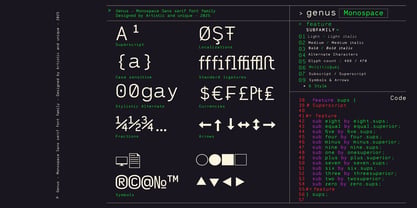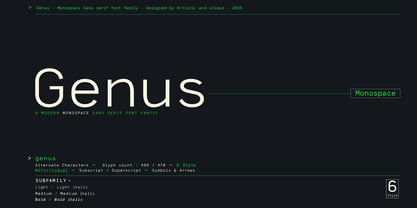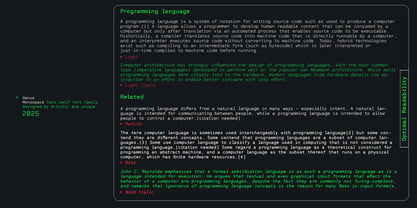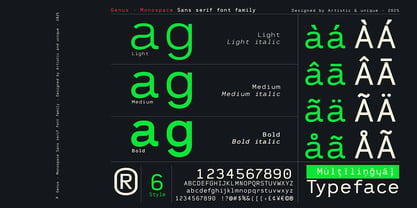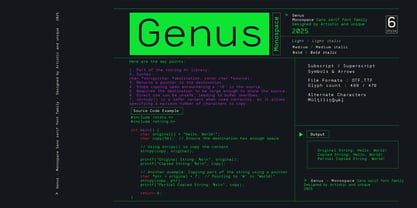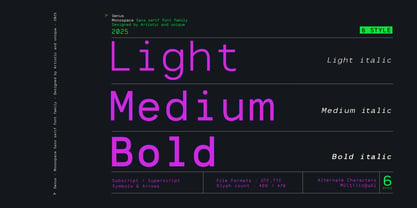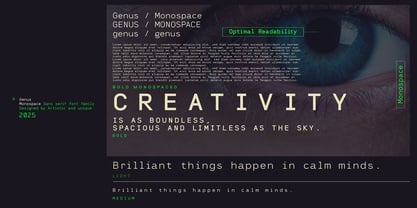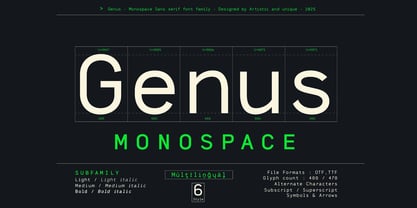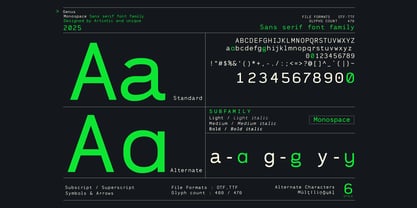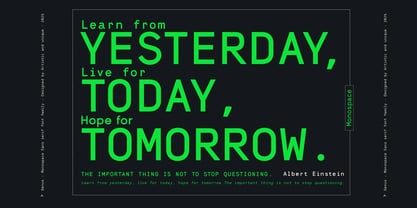
The Genus Font Family was designed by Osman Taner Kucukgenc and published by Artisticandunique. Genus contains 6 styles and family package options. More about this family
Genus - Monospace Sans Serif Font Family
This sans serif font is available in 6 styles and features multilingual support. Each font contains 458 glyphs, including letters, small caps, numbers, punctuation, symbols, and more.
A highly functional, monospaced font family designed for optimal performance in both print and the web.
OpenType features in Genus Monospace include Small Caps, Case-Sensitive Punctuation, Stylistic Alternates, Fractions, Subscripts, Superscripts, Ligatures, and more.
Thanks to its structure, Genus Monospace is highly readable even at small sizes. It's suitable for coding, user experience, web, and graphic design, offering versatility and visual impact for a wide range of applications.
With its versatile structure, Genus offers compelling use in a variety of creative projects, including product and graphic design, web design, publishing, and more, thanks to its visually appealing features and options beyond coding.